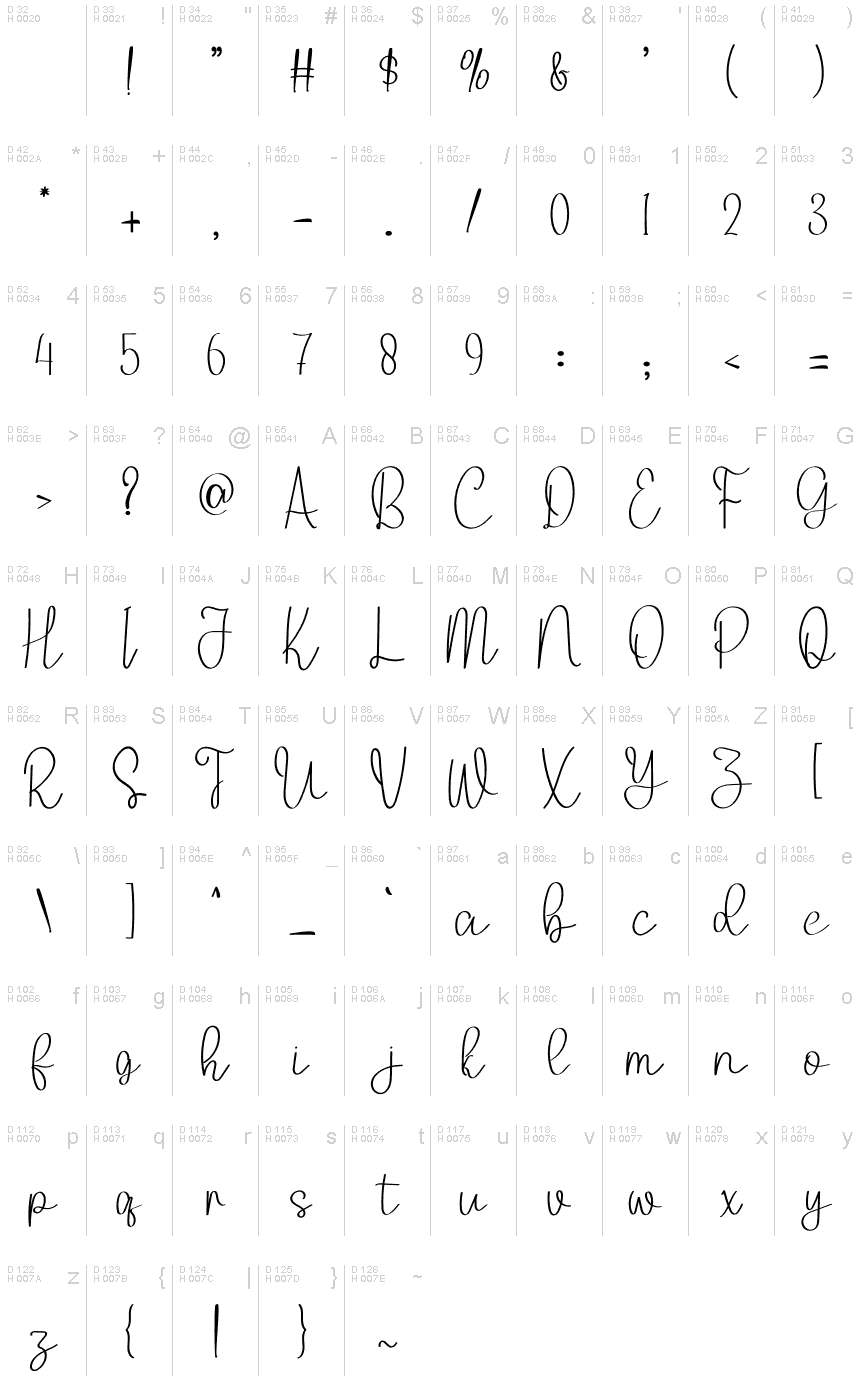
Smooth Berry
Smooth Berry is a light, handwritten font designed by Inermedia Studio. Its flowing curves and delicate strokes add an elegant touch to any project. This font is perfect for invitations, greeting cards, and other stationery items. Its playful yet refined style also makes it ideal for branding projects such as logos and packaging designs. The smooth lines of Smooth Berry lend themselves well to web design, making it a great choice for headlines and body text alike. With its versatile style, this semi-bold font can be used in a variety of creative projects that require a touch of sophistication.